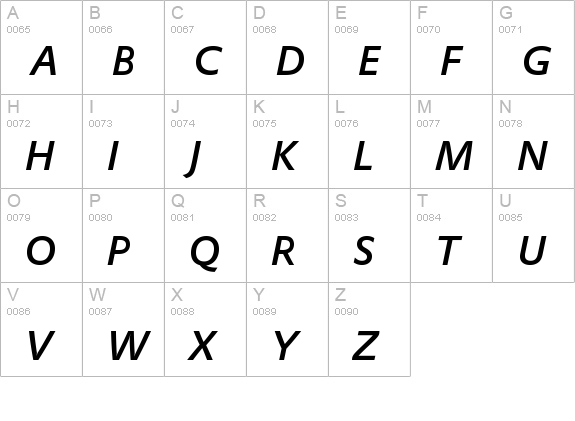
DTLProkyonSTMedium Italic Font Details
DTLProkyonSTMedium Italic is a distinctive, italic variant in the DTLProkyonSTMedium typeface family \xE2\x80\x94 well suited to design and typography projects.
The DTLProkyonSTMedium Italic font is a stylish and versatile typeface that exudes elegance and sophistication. With its sleek and modern design, this font is perfect for adding a touch of sophistication to any project. What sets DTLProkyonSTMedium Italic apart is its unique combination of boldness and finesse, making it suitable for a wide range of design applications. Whether you're working on a website, branding materials, or editorial layouts, this font will elevate your project to the next level. And the best part? DTLProkyonSTMedium Italic is completely free to download at FontsMarket.com! So you can enhance your designs with this exceptional font without breaking the bank. Don't miss out on this opportunity to add a touch of elegance to your projects with DTLProkyonSTMedium Italic font.